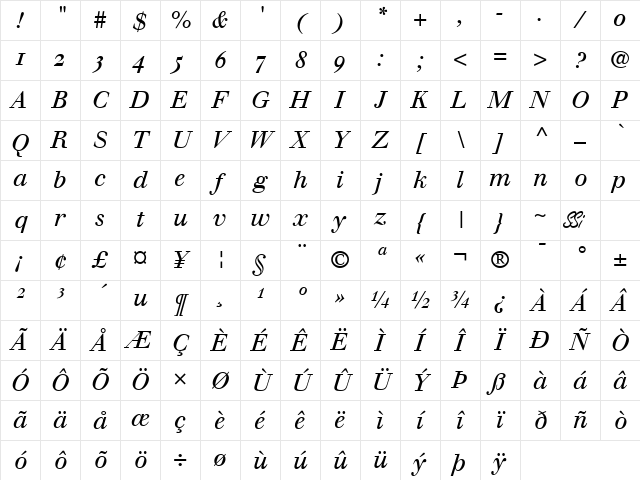
Walbaum OldStyle SSi Italic Oldstyle Figures
Style: Italic Oldstyle Figures
Walbaum OldStyle SSi Family
Walbaum OldStyle SSi Italic Oldstyle Figures
Design Context for Walbaum OldStyle SSi
Walbaum OldStyle SSi carries the refined structure of traditional serif typography, with bracketed terminals and considered proportions that communicate credibility and craft. The slanted form adds forward momentum and visual energy.